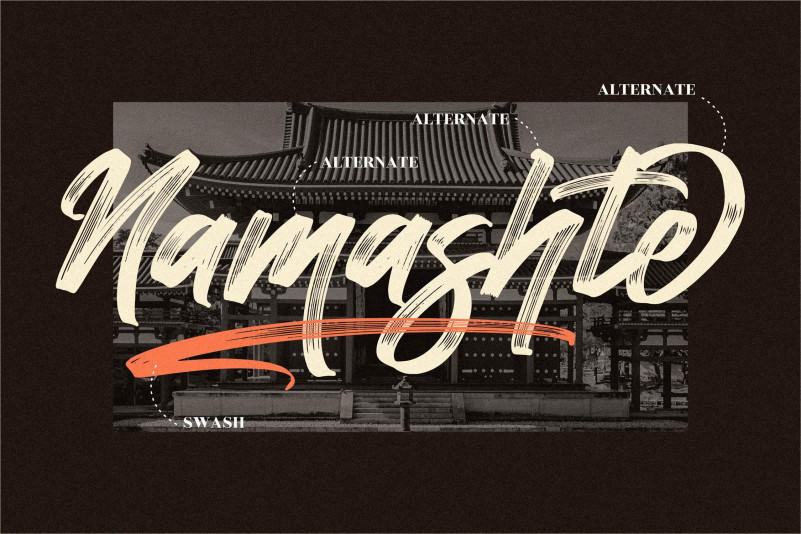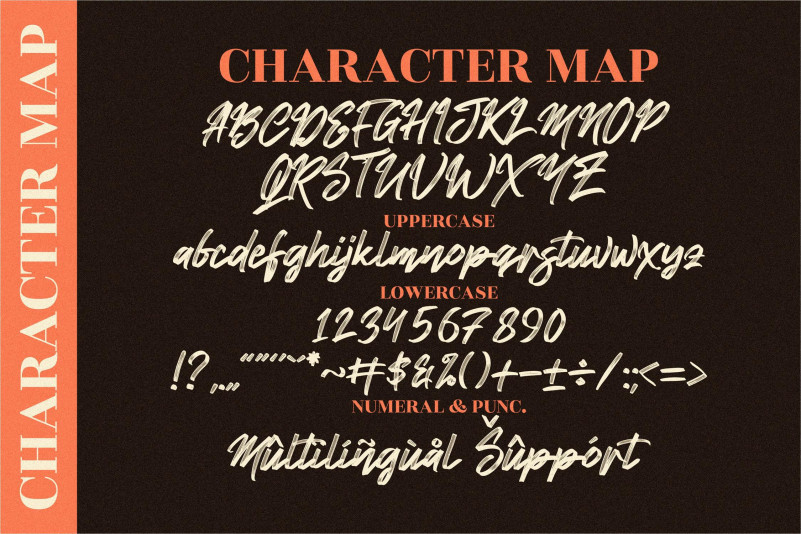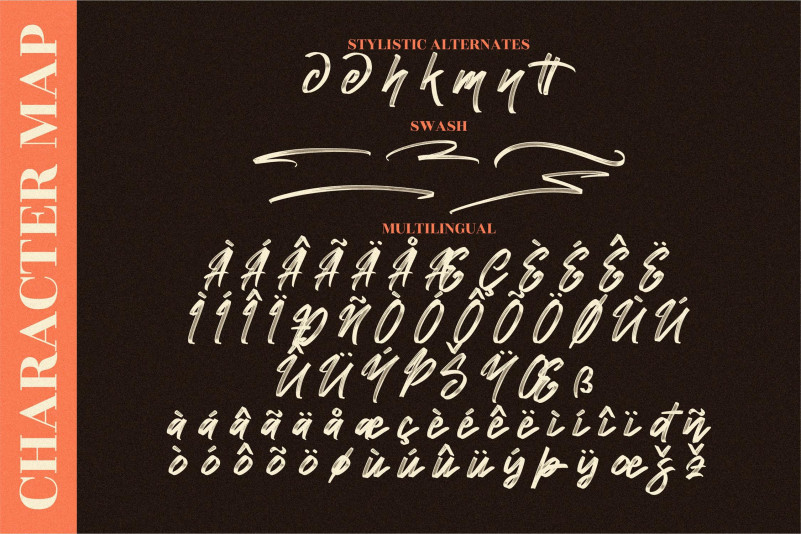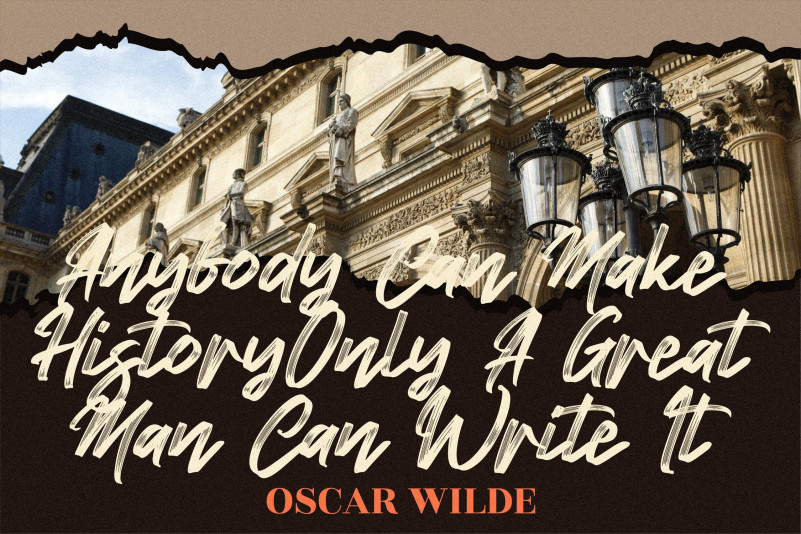
Namashte Font
Namashte Brush Font
This is a modern and bold brushed script font. It looks beautiful on a variety of designs requiring a personalized style, such as wedding invitations, thank you cards, weddings, greeting cards, logos and so on.